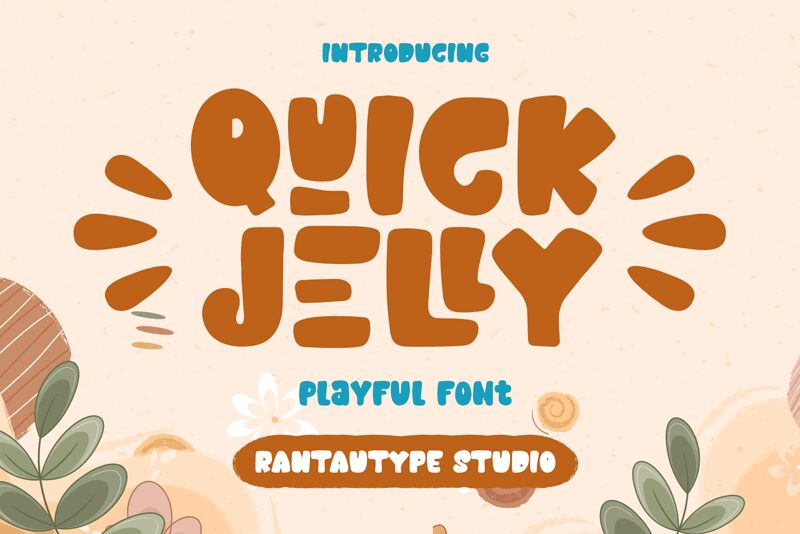
Quick Jelly font by RantautypeStudio is a free font that embraces a cartoonish, rounded type style. Its range of decorative letters elevates any surface they are used on, making the typeface suitable for headings, titles, and cover designs. Use letters with outlines, drop shadows, or any other effect of your liking to achieve a more personalized versatile design that suits your project.
The beauty of the Quick Jelly font is its multi-purpose use. The font is an informal, friendly typeface to use in signage, logos, posters, online posts, social media content, flyers, invitations, packaging, T-shirts, and countless other products. So go ahead and purchase it once to use many times on multiple fun designs.